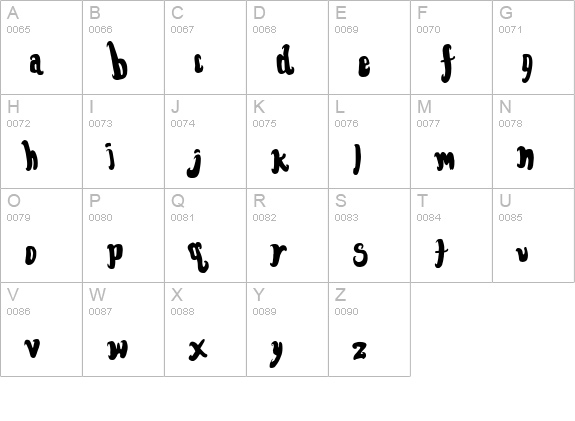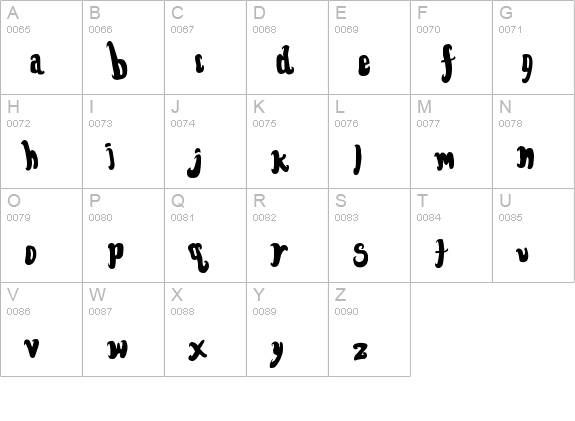
FontForTheDumped Font Details
Introducing FontForTheDumped - a whimsical and playful font perfect for adding a touch of fun to your projects. This unique typeface features quirky characters and charming details that will surely make your designs stand out. The FontForTheDumped font is freely available to download at FontsMarket.com, making it accessible for anyone looking to add a creative touch to their work. Whether you're designing invitations, posters, or social media graphics, this font will bring a delightful and lighthearted feel to your projects. Embrace the free-spirited nature of FontForTheDumped and let your creativity shine!